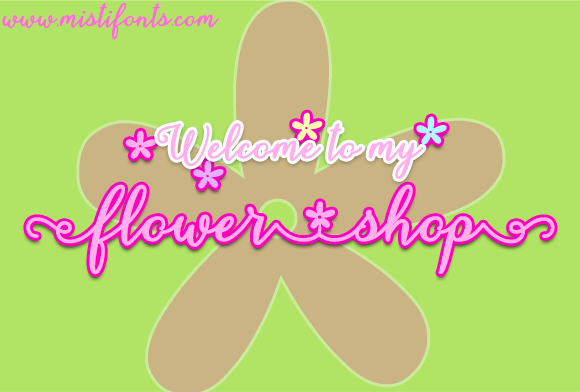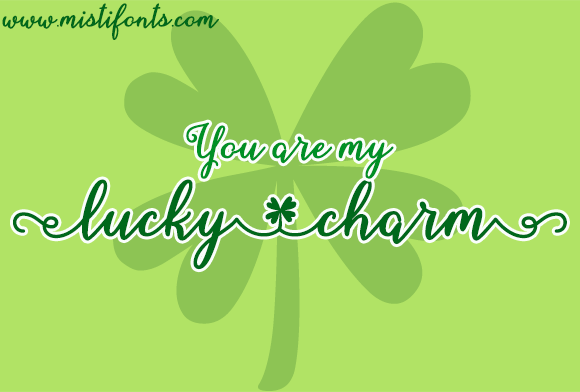
March Calligraphy Font
db-ku.com - Script & Handwritten -- March is the month that ushers in the Spring Time, and March Calligraphy is the perfect font for all your fresh and floral designs! This decorative font looks gorgeous when used to exemplify freshness and renewal, and is a great option for special event and wedding designs.